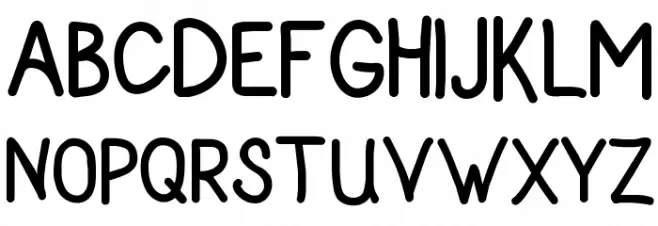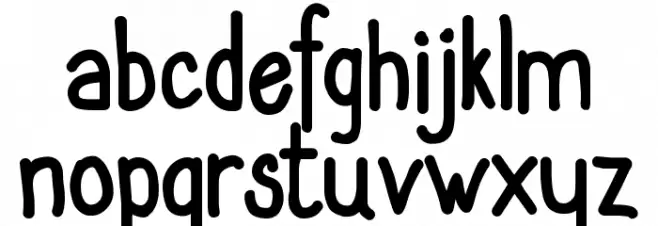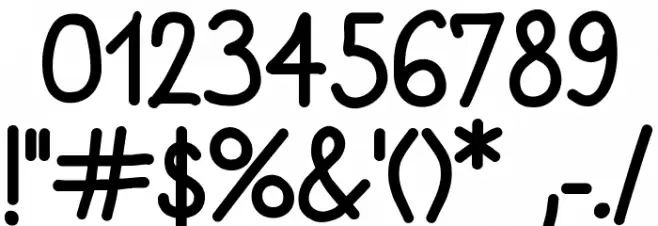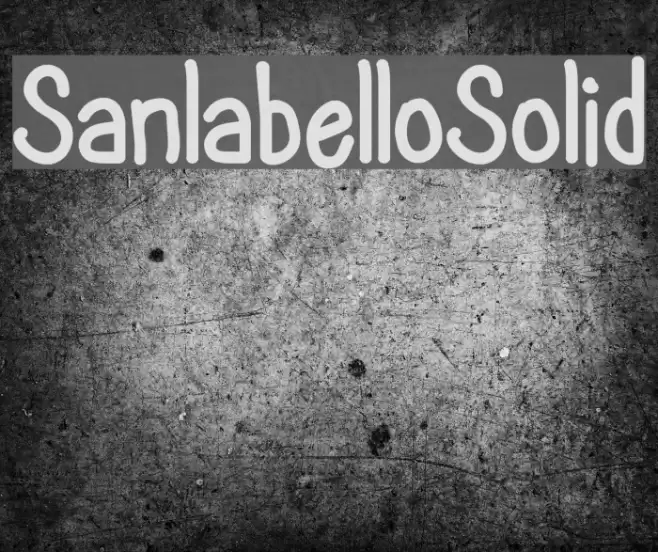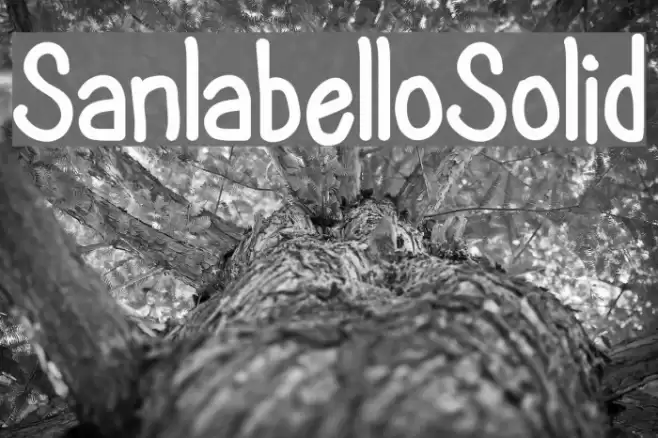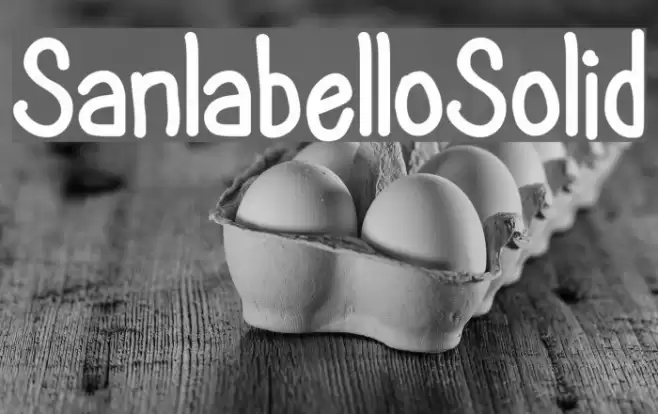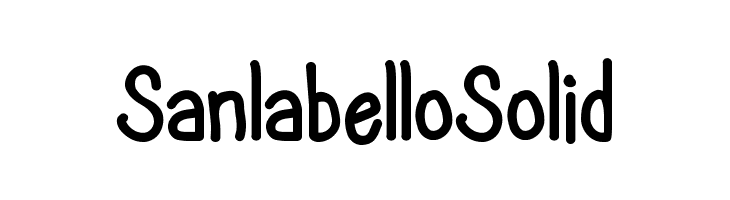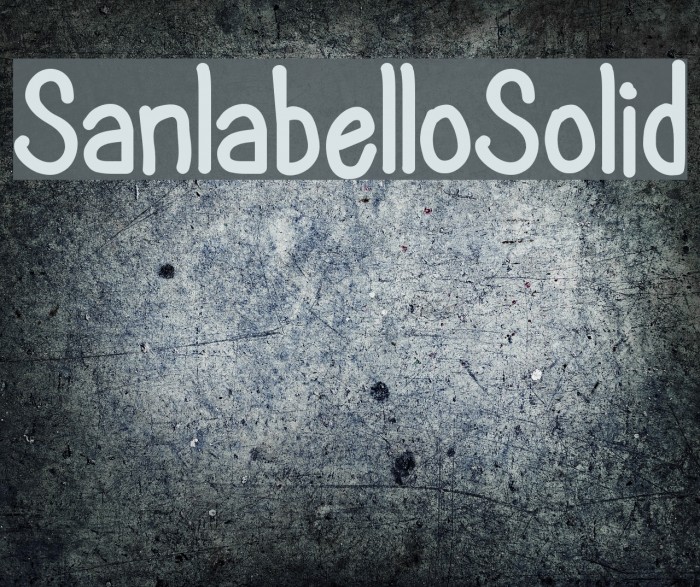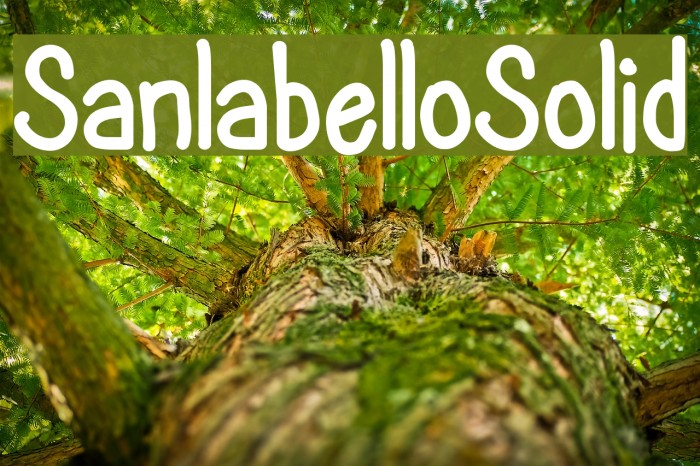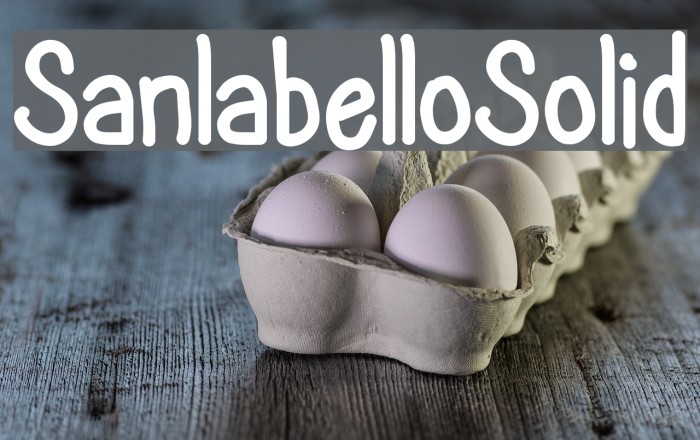
SanlabelloSolid
This font features a playful and rounded style, characterized by its smooth curves and friendly appearance. The letters are bold and slightly condensed, giving them a strong presence while maintaining a casual and approachable feel. The uppercase and lowercase letters are consistent in style, with a uniform stroke width that adds to its readability. The numerals and special characters follow the same design principles, ensuring a cohesive look across all text elements. This font's informal and lively nature makes it suitable for projects that aim to convey warmth and approachability.
A playful, rounded font with smooth curves and a friendly appearance.
- Proposed Projects: Ideal for children's books, playful branding, casual invitations, and social media graphics.
- Width: Condensed
- Overall Style: Playful
- Use Case: Headlines, Logos, Posters